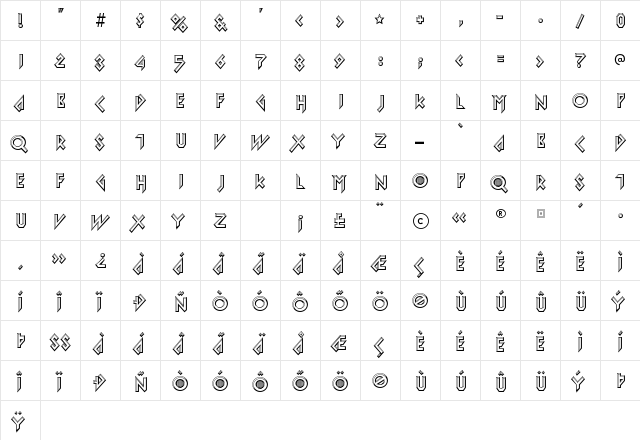
Iomanoid Regular
Design Context for Iomanoid Typeface
Iomanoid is a composed and adaptable typeface that performs quietly and consistently across a wide range of design contexts.